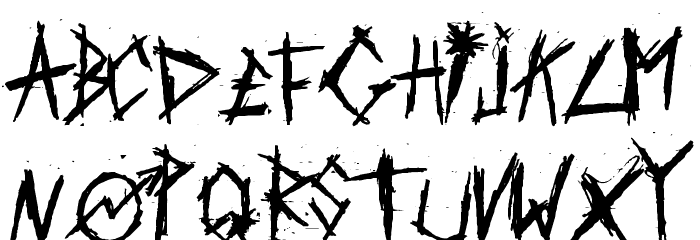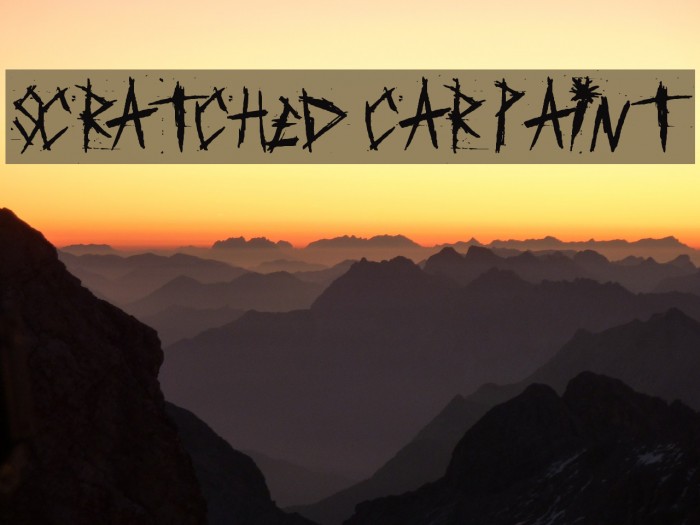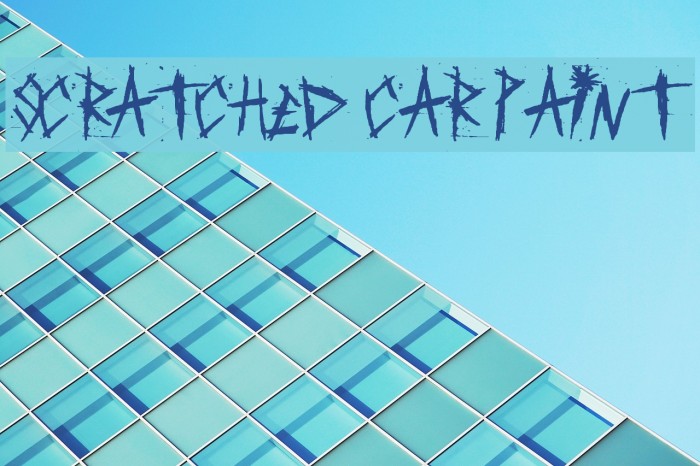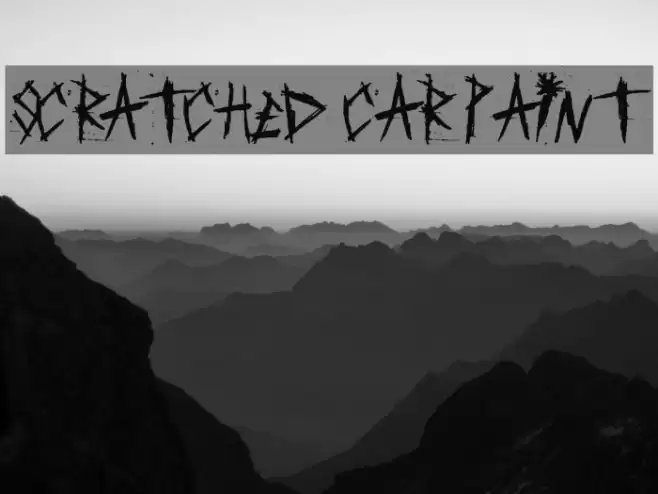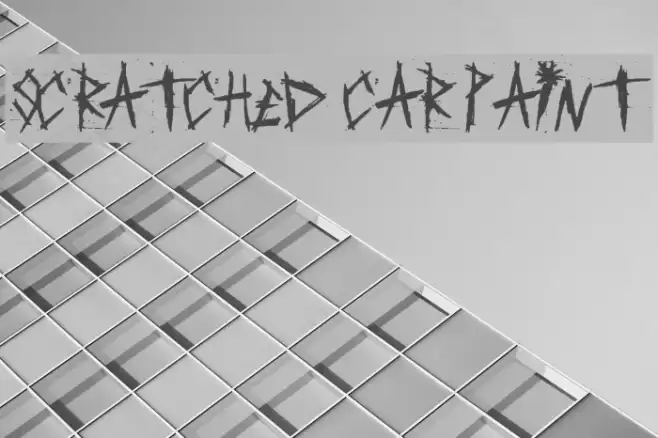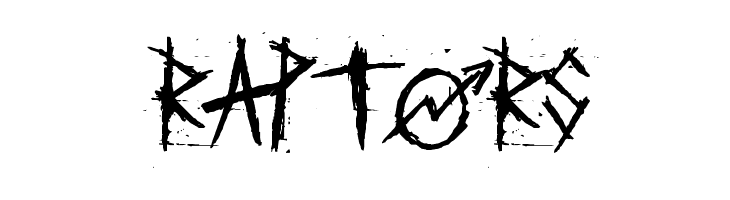
Scratched car paint Font
This font features a highly distressed and chaotic appearance, reminiscent of scratched or graffiti-like textures. The characters are jagged and uneven, with strokes that vary in thickness, creating a sense of raw energy and movement. The design is bold and aggressive, with a hand-drawn quality that suggests spontaneity and rebellion. The uppercase and lowercase letters maintain a consistent style, with unique and creative variations that add to the overall edgy aesthetic. This font is ideal for projects that require a strong, impactful visual statement.
A distressed, graffiti-like font with jagged, uneven strokes and a rebellious aesthetic.
- Proposed Projects: Album covers, streetwear branding, skateboarding graphics, event posters, and urban-themed designs.
- Character Spacing: Tight